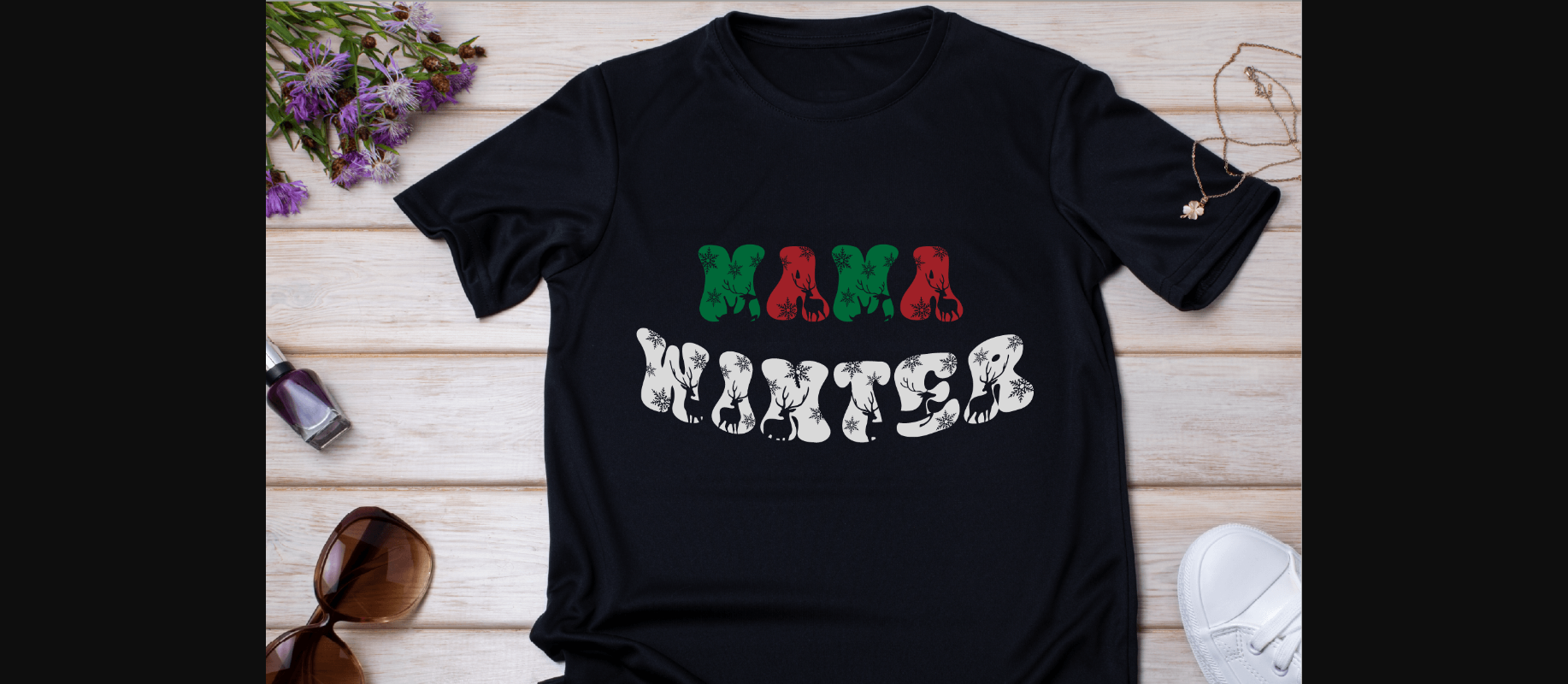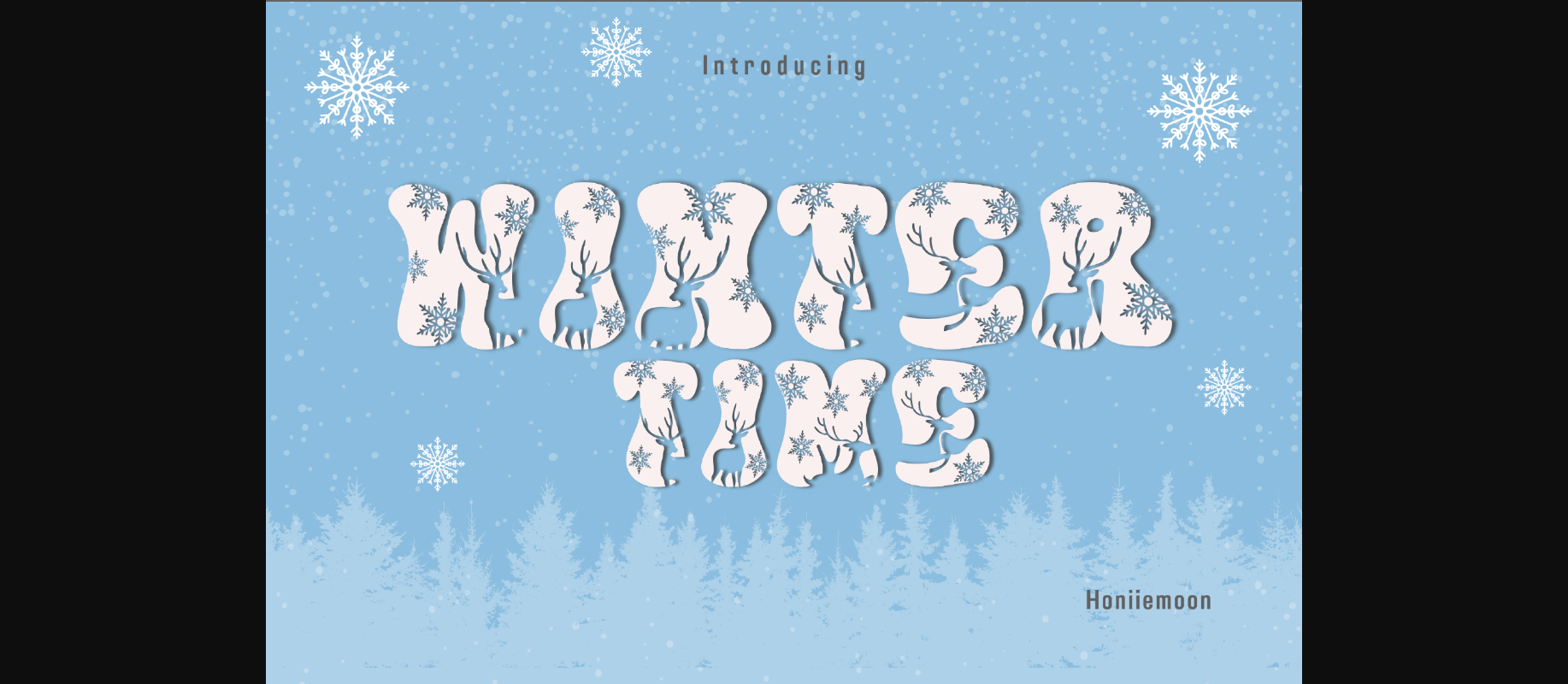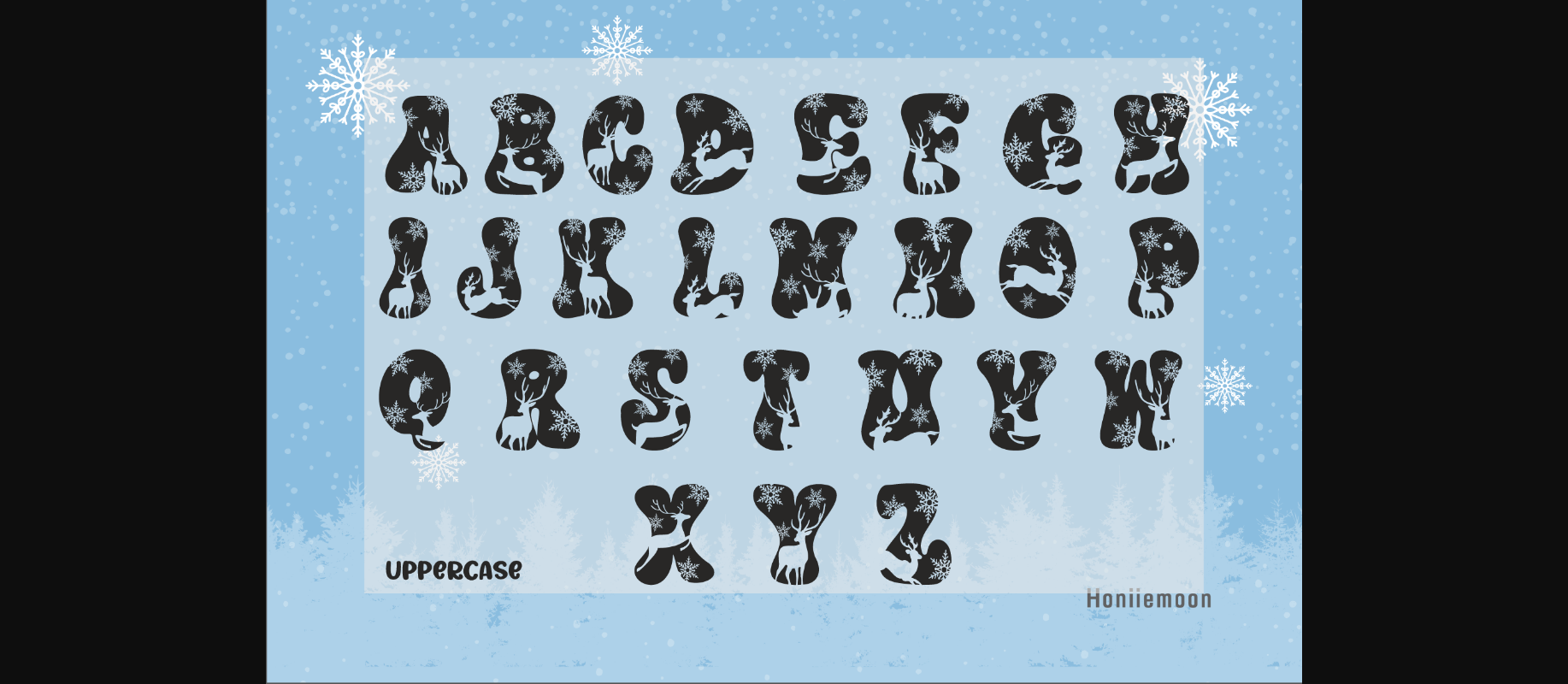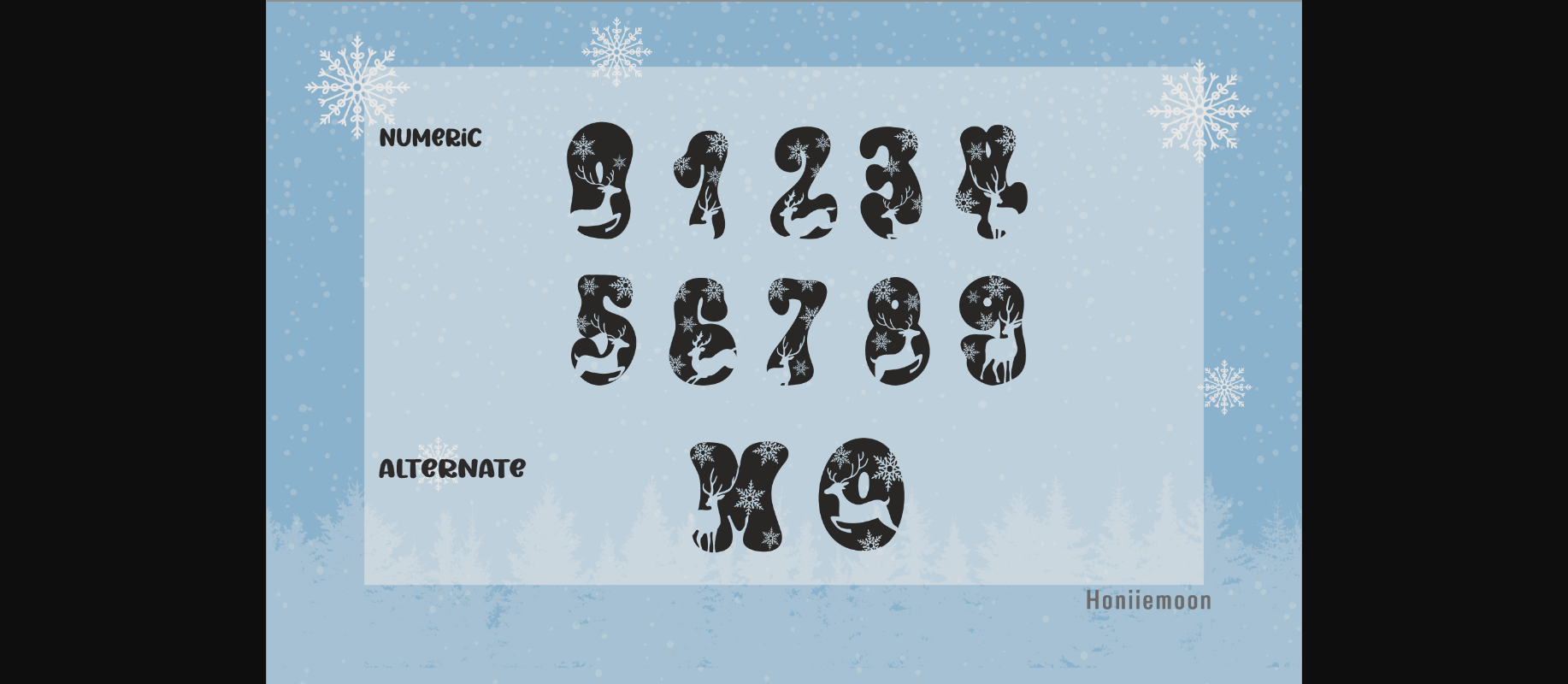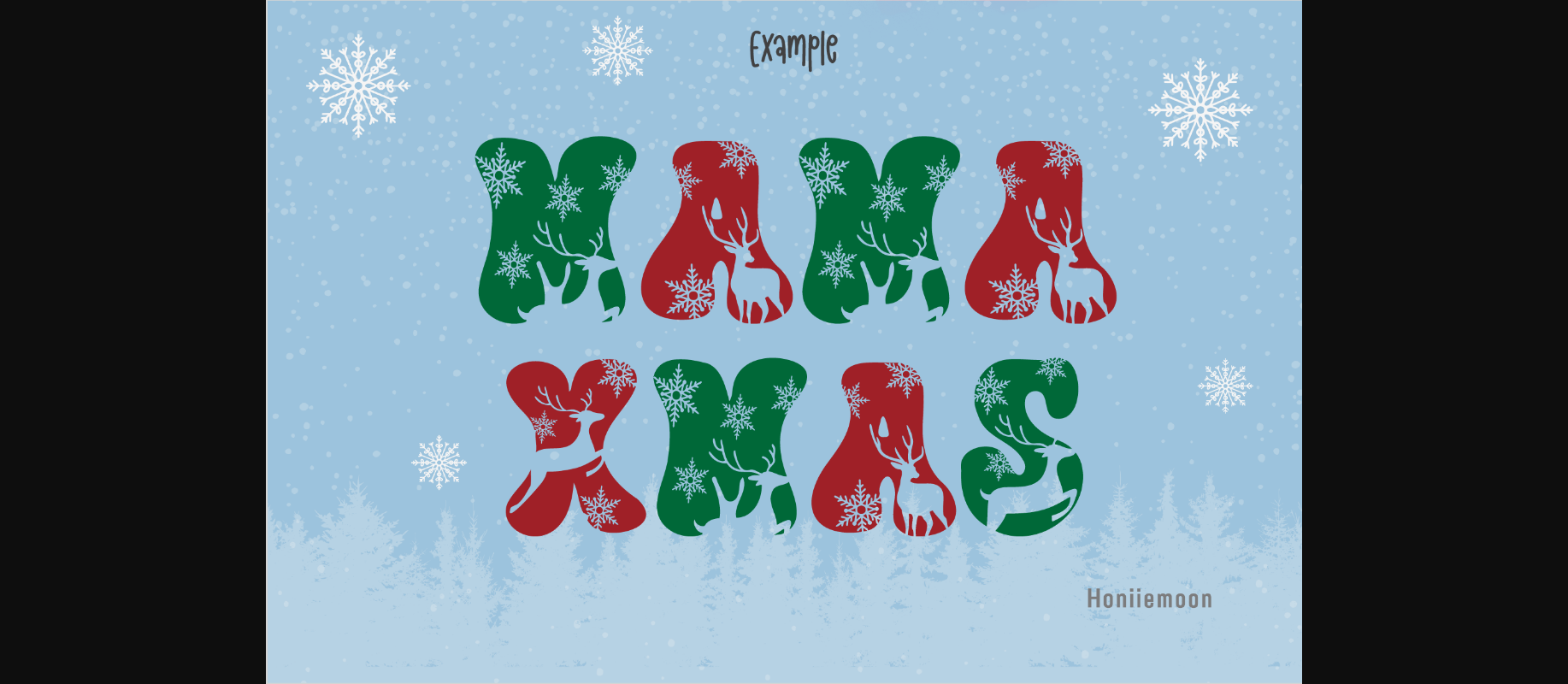
Winter Time Font
About Winter Time Font
Winter Time is a cool and fun decorative font. It looks both cute and jolly and will enhance each of your designs. The only limit is your imagination. Add this frosty font to each of your creative ideas and notice how it makes them come alive!